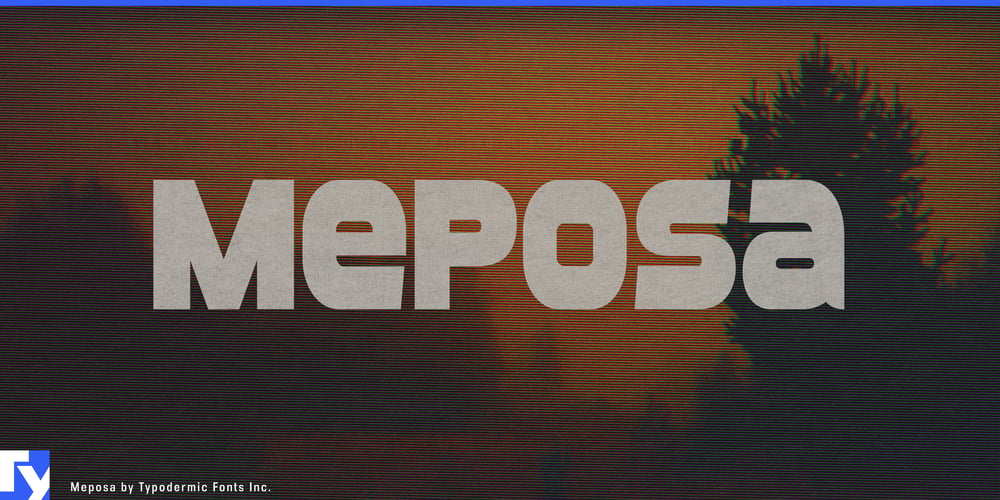
Meposa
Meposa font
Meposa Font Family was designed by Ray Larabie and published by Typodermic. Meposa contains 2 styles and family package options. Prepare to have your expectations shattered by Meposa, a typeface that defies classification and laughs in the face of convention. This isn’t just a font; it’s a typographic mutiny, blending elements from across centuries and cultures into a design that refuses to be pinned down by era or genre.Imagine wood type storming out of a 19th-century print shop, hijacking a 1970s custom van, and careening through a digital wormhole—that’s Meposa. Its mixed-case letters with brazenly open apertures thumb their nose at typographic tradition, creating a visual language that’s simultaneously familiar and alien. This is not your grandfather’s wood type, nor is it your father’s retro script. Meposa is the lovechild of historical craft and future shock, raised by wolves in a design dimension all its own. Drawing inspiration from the rebellious spirit of 1970s van culture, Meposa channels the raw creativity of artists who turned vehicles into canvases. But it doesn’t stop there. This typeface time-travels at will, borrowing the authenticity of historical wood type, the edginess of retro-tech aesthetics, and the sleekness of modern design. The result? A typographic Frankenstein’s monster that’s unexpectedly beautiful in its audacity.Meposa doesn’t just break the mold—it smashes it to pieces and reassembles them into something entirely new. It’s the perfect choice for designers who want to create work that stops viewers in their tracks, forcing them to question whether they’re looking at something vintage, contemporary, or from an alternate timeline altogether. This linguistic chameleon speaks fluently across a vast array of Latin-based European writing systems. From the fjords of Norway to the plains of Africa, Meposa adapts its unconventional forms to languages as diverse as Luxembourgish and Zapotec, ensuring your message maintains its rebellious spirit, no matter where it roams.Choose Meposa when you need typography that doesn’t just think outside the box, but questions the very existence of boxes. In a world of typographic conformity, Meposa stands as a testament to the power of breaking every rule in the book… and then writing a new book entirely.